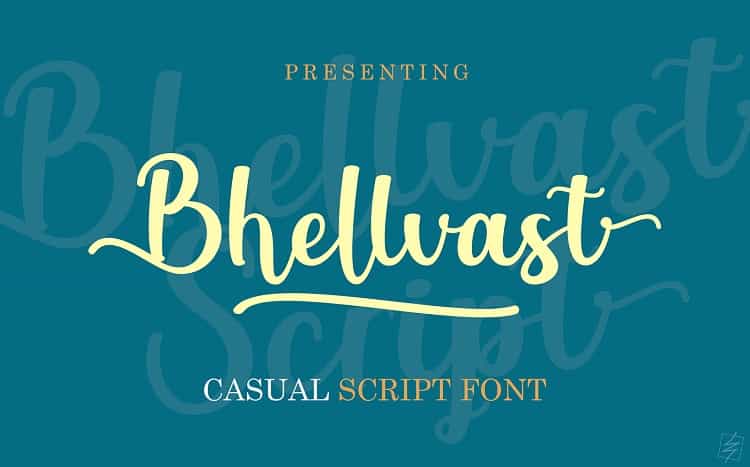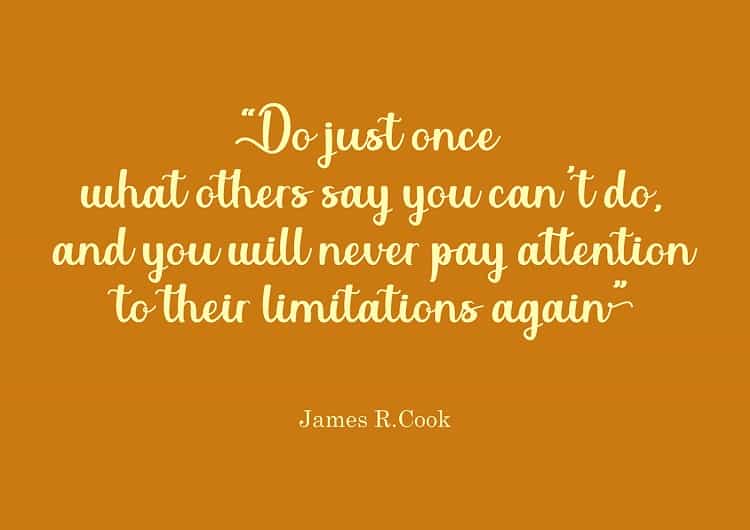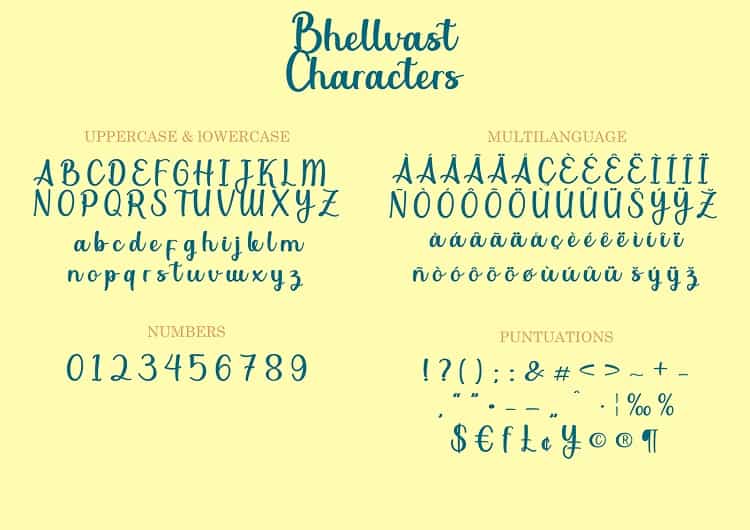
Discover Bhellvast Casual Script Font, part of the Calligraphy Handwritten Script collection—a versatile and unique font perfect for adding a personal touch to your projects. Download it for free and enjoy crafting designs with style, from invitations to social media posts. This font is available exclusively for personal use, giving you the freedom to create without limits. Unlock your creativity with Bhellvast Casual Script Font today!
Bhellvast is an elegant script font that has beautiful flow and soft shapes. The characters are easy to read, but should you wish to make it appear more attractive, there are variety of alternatives to achieve it. This font is ideal for titles, logos as well as banners, t-shirts packaging, and any other place you require this typeface.